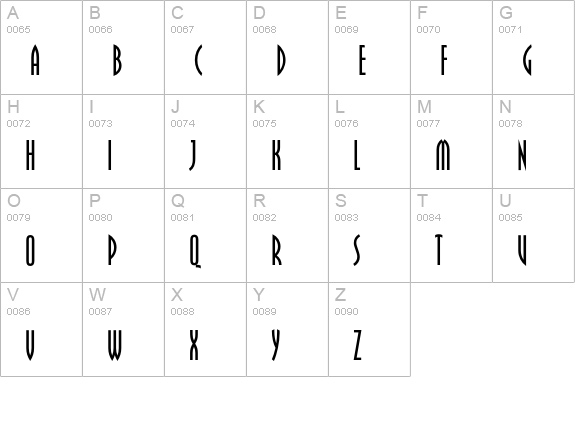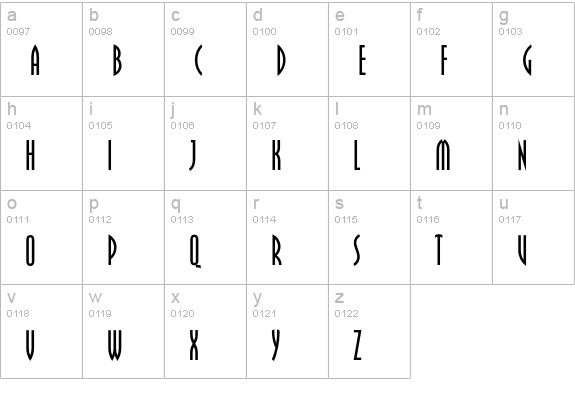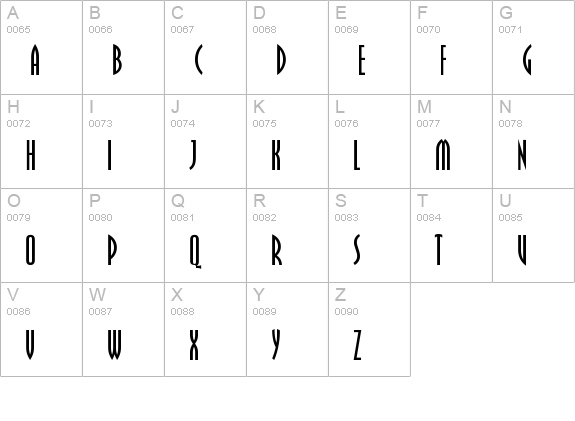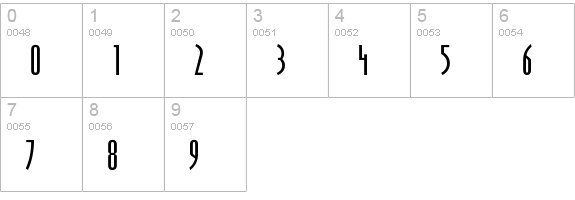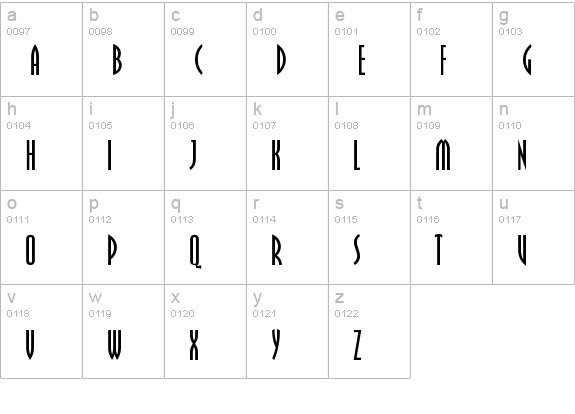
OPTIPippenFive is a stylish and elegant font that exudes sophistication and modernity. Its sleek lines and clean design make it a versatile choice for a wide range of projects, from branding to editorial design. With its unique blend of classic elegance and contemporary flair, OPTIPippenFive is sure to make a statement wherever it is used. The best part? OPTIPippenFive is available for free download at FontsMarket.com, making it accessible to designers and creatives looking to add a touch of sophistication to their work without breaking the bank. Get your hands on OPTIPippenFive today and elevate your designs with this sleek and stylish font.